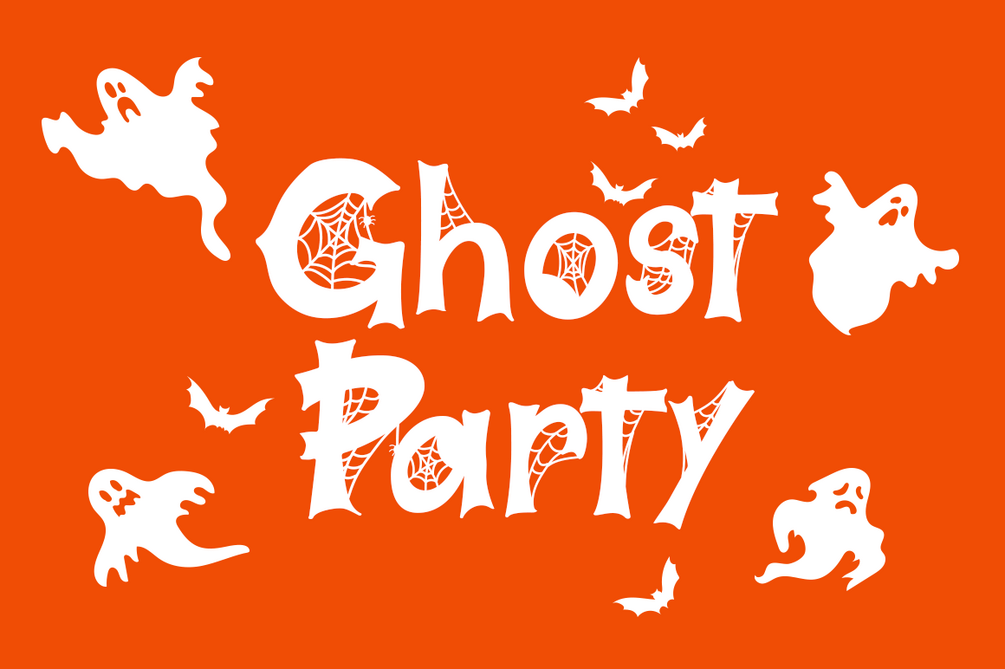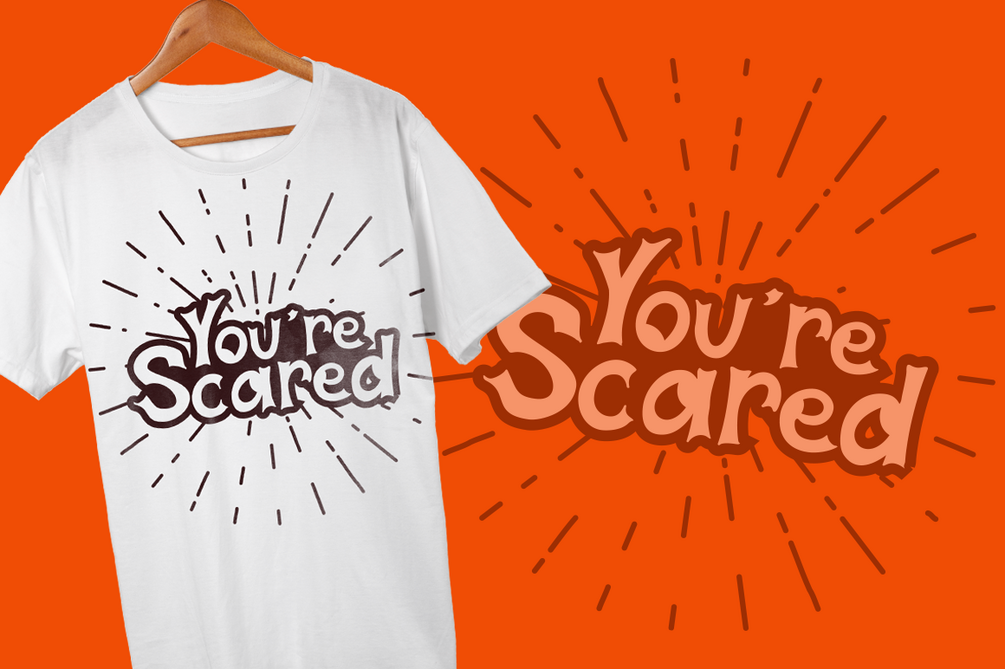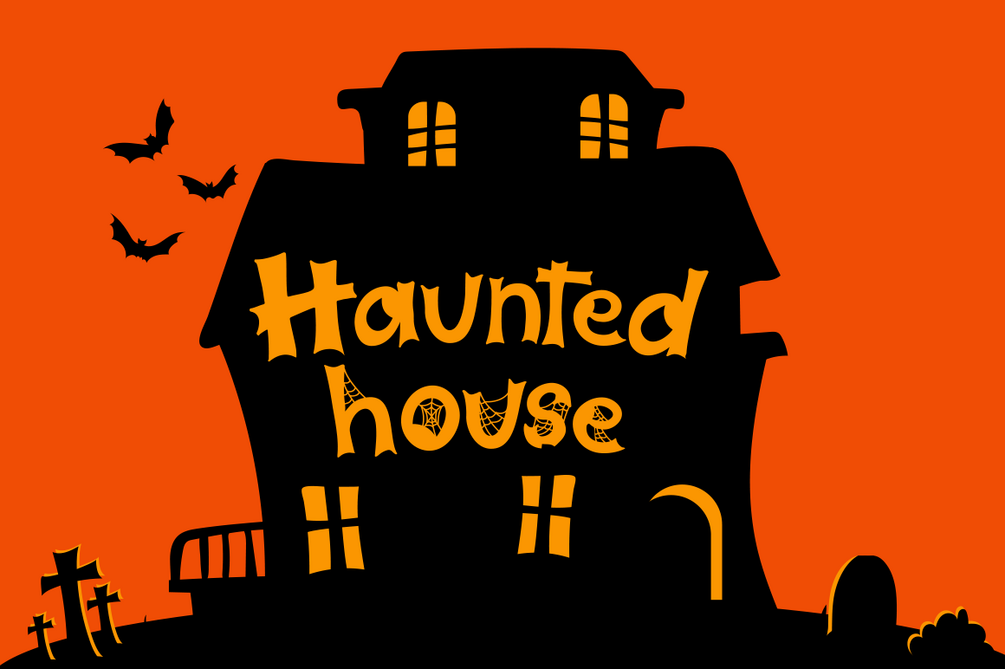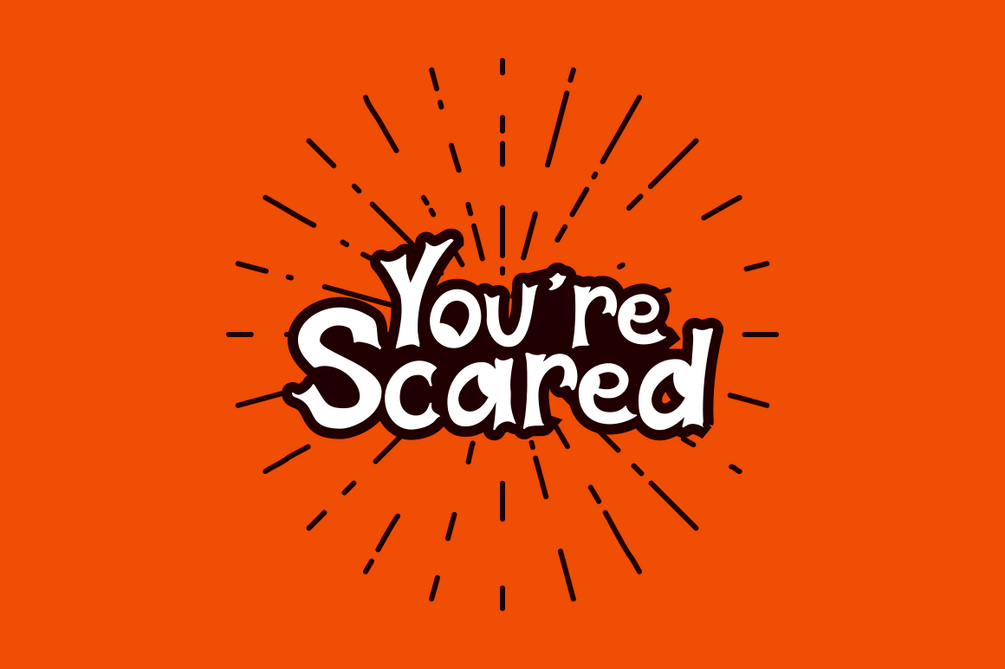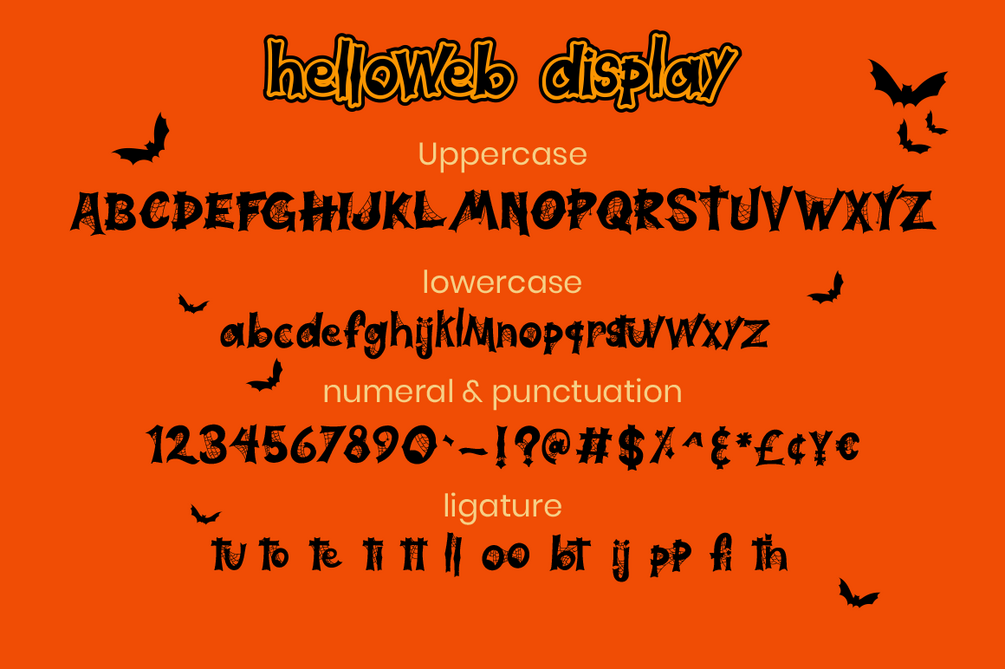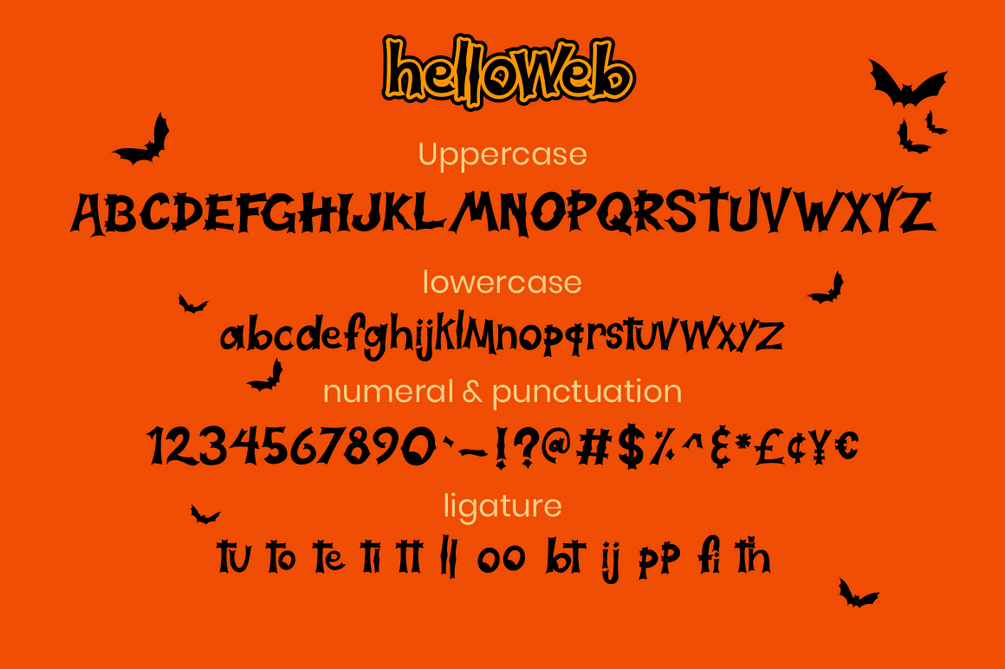
Hallo Web - Hallowen Font
Introducing Hallo Web - Hallowen Font
Halloweb is halloween theme display font, including 2 style regular and display with spider web ornament. Combination of halloweb font make an unique typeface,
perfect for halloween theme design like banner, book cover, t-shirt, branding, promotion, social media post, handwritten quotes and more.
Features:
• Hallo Web Regular
• Hallo Web Display
• Uppercase
• Lowercase
• Numbers & Punctuation